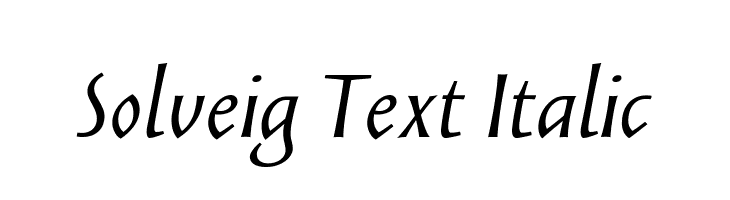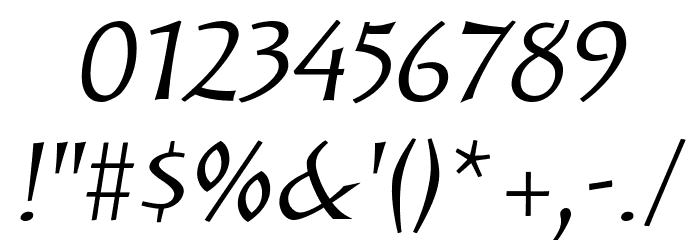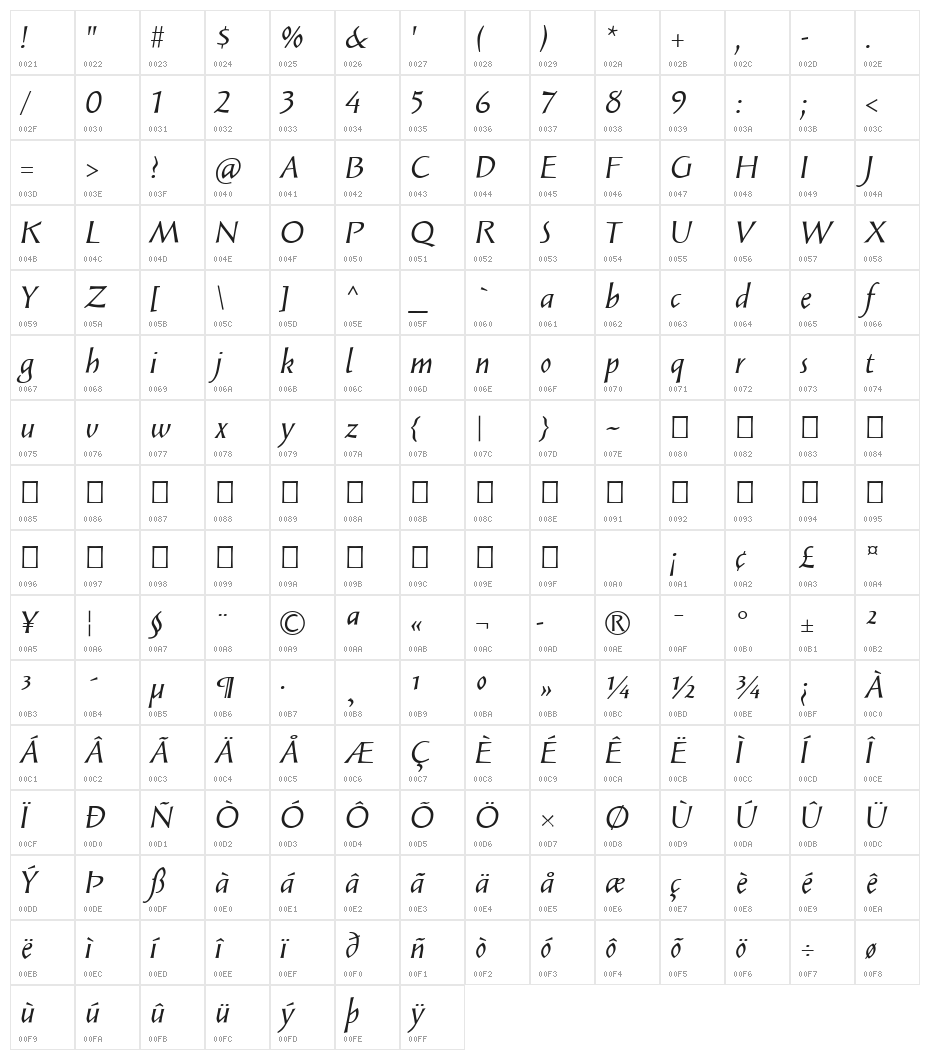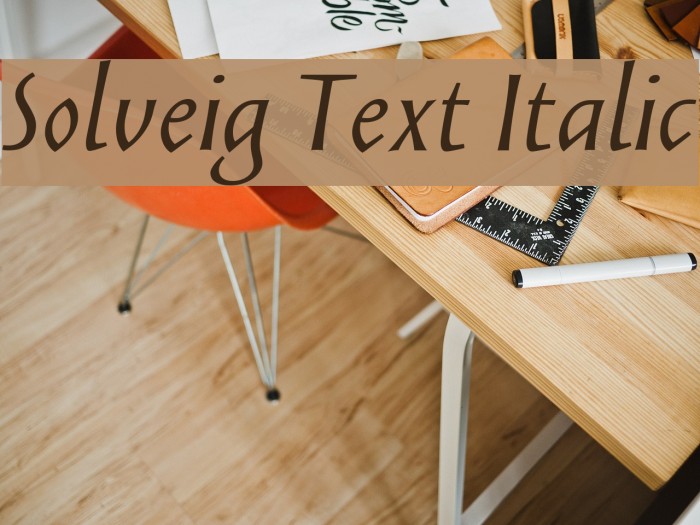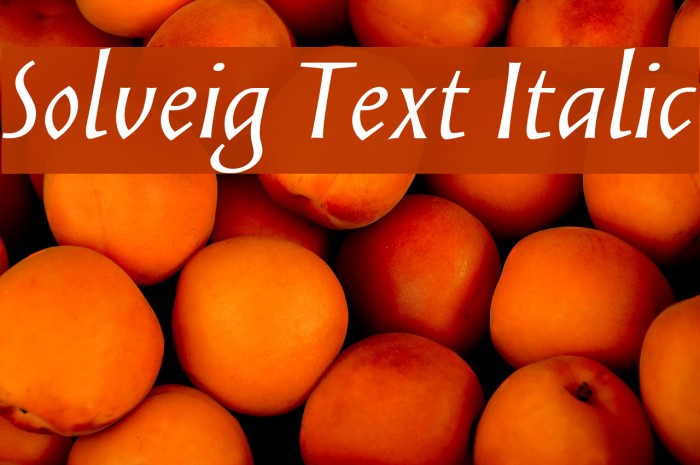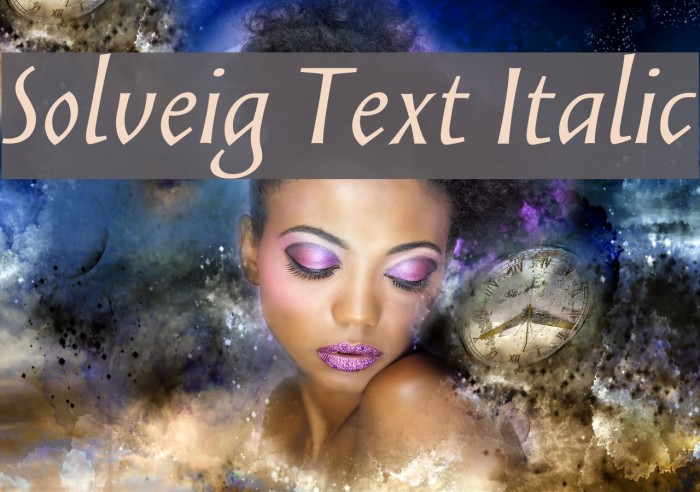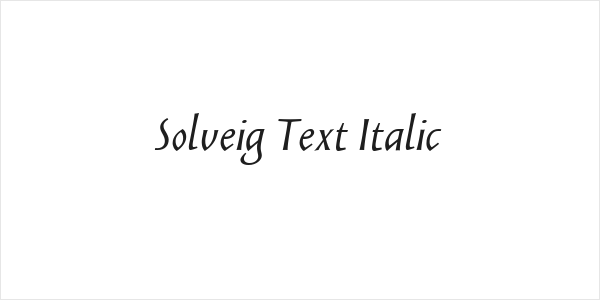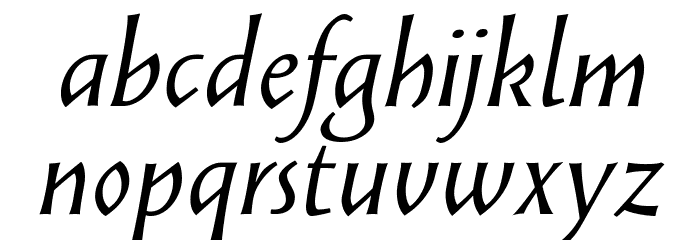
Solveig Text Italic Font
Solveig Text Italic Description
This font exudes a sophisticated and elegant style with its italicized form, characterized by smooth, flowing lines and a slight slant that adds a dynamic feel. The uppercase letters are tall and slender, while the lowercase letters maintain a consistent height, creating a harmonious balance. The numerals are distinct and clear, complementing the overall aesthetic. Special characters are crafted with precision, enhancing the font's versatility. The design is both classic and modern, making it suitable for a variety of applications.